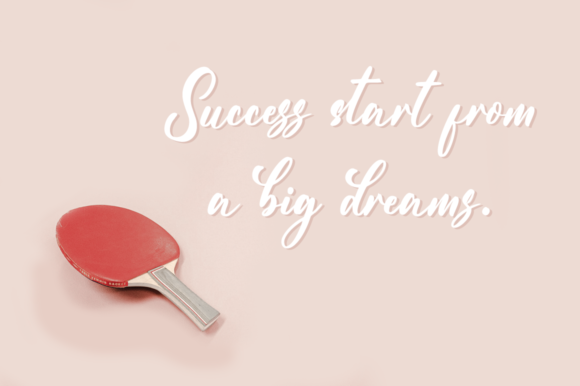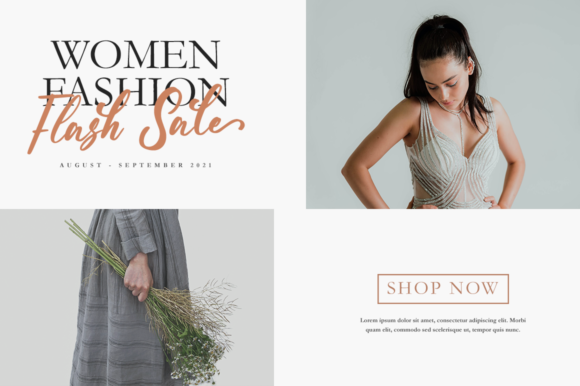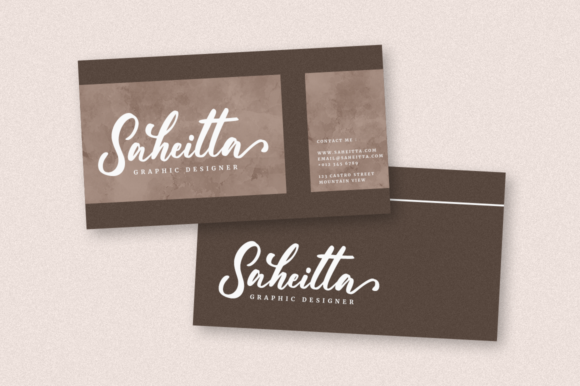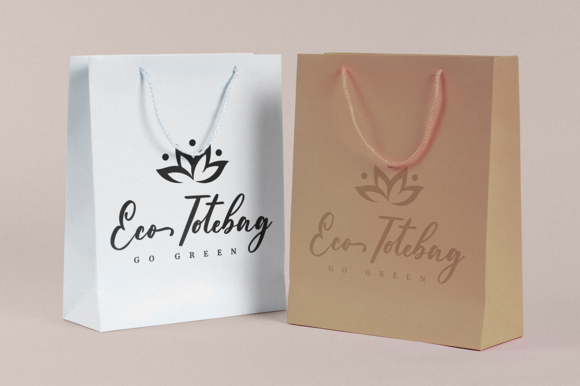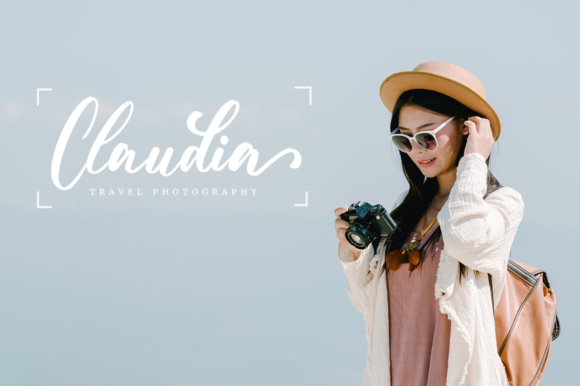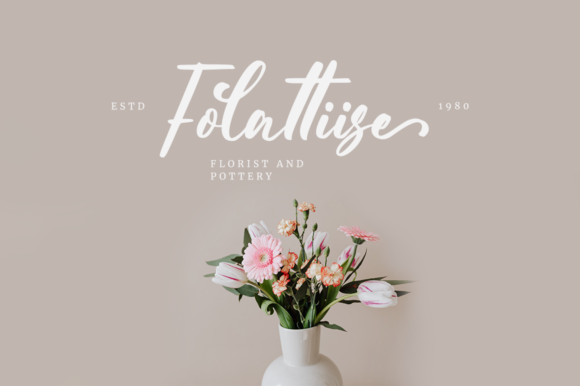
Aulletta Font: Elevate Your Design with Elegance and Sophistication
In the world of typography, few fonts capture the essence of romance and luxury as beautifully as Aulletta Font. This stunning, cursive calligraphy typeface is designed to add a touch of elegance and sophistication to any design project. With its unique charm and character, Aulletta Font is sure to leave a lasting impression on your audience.
The Characteristics of Aulletta Font
Aulletta Font is a romantic, cursive, and sweet calligraphy typeface that boasts characters that dance along the baseline. This distinctive feature gives the font a sense of movement and fluidity, making it perfect for designs that require a touch of whimsy and playfulness. The font’s elegant lines, curves, and swashes evoke a sense of luxury and refinement, making it ideal for high-end branding, packaging, and advertising projects.
What Makes Aulletta Font Stand Out
Aulletta Font stands out from other calligraphy typefaces due to its unique combination of classic and modern elements. The font’s classic cursive style is infused with a modern twist, making it versatile and suitable for a wide range of design applications. Whether you’re creating a wedding invitation, a luxury brand logo, or a high-end product packaging, Aulletta Font is sure to add a touch of sophistication and glamour to your design.
Aulletta Font is a perfect choice for designers and crafters who want to add a touch of elegance and luxury to their projects. The font is ideal for a variety of design applications, including:
- Luxury branding and packaging
- Digital graphics and social media assets
Tips for Using Aulletta Font
To get the most out of Aulletta Font, here are some tips to keep in mind:
- Use Aulletta Font as a headline font to add a touch of elegance and sophistication to your design.
- Pair Aulletta Font with a clean and simple sans-serif font to create a beautiful contrast.
- Experiment with different font sizes and colors to add depth and visual interest to your design.
- Use Aulletta Font’s swashes and flourishes to add a touch of whimsy and playfulness to your design.
Why Choose Aulletta Font
There are many reasons why Aulletta Font is a great choice for designers and crafters. Here are just a few:
- Unique and distinctive design that will set your project apart.
- High-quality and elegant typography that will add a touch of luxury to your design.
- Versatile and suitable for a wide range of design applications.
- Easy to use and pair with other fonts.
In conclusion, Aulletta Font is a stunning and elegant calligraphy typeface that is sure to add a touch of luxury and sophistication to any design project. With its unique charm and character, Aulletta Font is perfect for designers and crafters who want to create beautiful and eye-catching designs. Whether you’re creating a wedding invitation, a luxury brand logo, or a high-end product packaging, Aulletta Font is a great choice.